Twitter Font Generator – Create Stylish Twitter Fonts for Tweets, Bios & Threads
Introduction – Why Fonts Matter on Twitter
On social media, text is more than just words—it’s a visual element that shapes how people perceive your content. With millions of tweets posted daily, using a Twitter Font Generator helps your tweets, bios, and threads instantly stand out and grab attention.
What is a Twitter Font Generator?
A Twitter Font Generator is a free online tool that uses Unicode Twitter Fonts to turn your text into bold, italic, decorative, or handwritten styles.
- Works smoothly across Twitter, Instagram, TikTok, and other platforms
- Unicode ensures fonts display consistently across devices
Example: Refont’s Fancy Fonts Generator offers dozens of Stylish Twitter Fonts you can instantly copy and paste.
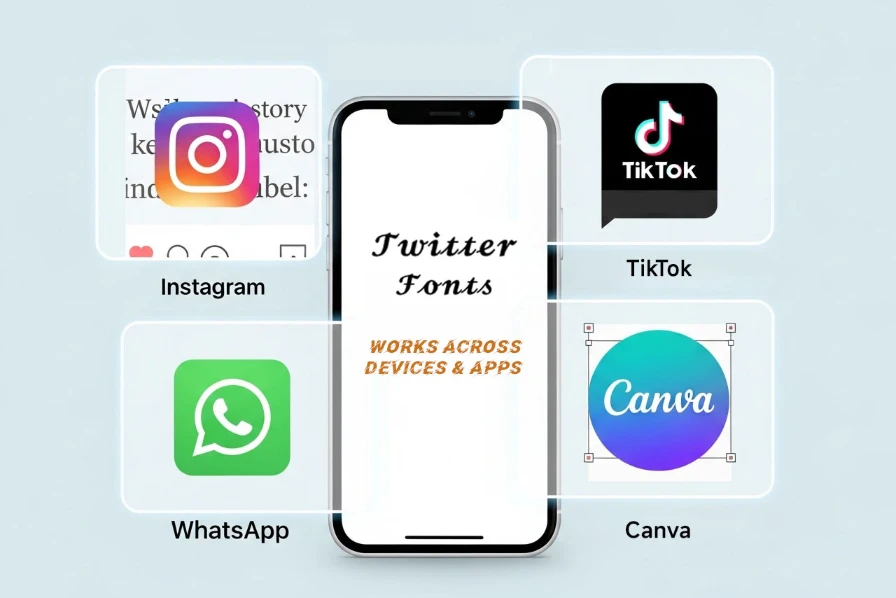
Advantages of Using a Twitter Font Generator
-
Save Time and Effort
No need for manual formatting—just type, generate, and copy. -
Wide Variety of Font Styles
From bold Twitter Fonts for headlines to handwritten Twitter Bio Fonts for a personal touch. -
Unicode Compatibility
Your Twitter Thread Fonts will look great across devices and platforms. -
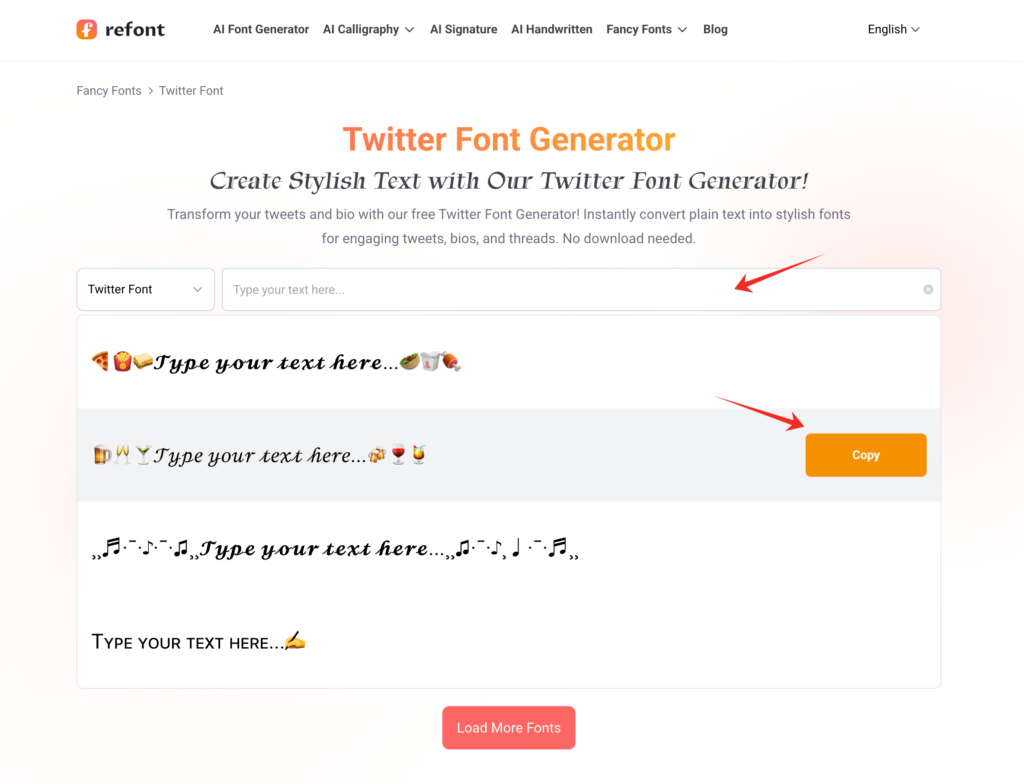
Best Practices for Stylish Twitter Fonts
Combine Fonts with Emojis & Symbols
Enhance your Twitter Fonts by pairing them with emojis( ͡° ͜ʖ ͡°) and symbols to create visually engaging content. For example, use a bold Twitter Font for your tweet headline, and add spark emojis to grab attention.
Maintain Consistent Font Styles
For professional accounts or brand pages, using consistent Twitter Fonts across your tweets, bio strengthens brand recognition. A Twitter Font Generator allows you to select Unicode Twitter Fonts that align with your brand’s aesthetic. For instance, stick to clean Twitter Bio Fonts for a cohesive look that reinforces your identity across the platform.
Choose Fonts Based on Content
- Formal announcements → Use clean, readable Unicode Twitter Fonts for professionalism.
- Creative or personal expression → Try handwritten or decorative Twitter Thread Fonts.
- Trending or viral tweets → Bold or eye-catching Stylish Twitter Fonts boost engagement.
Don’t Overdo It
Using too many styles can overwhelm readers. Combine one bold font for headings with a simple Unicode Twitter Fontfor body text to keep your tweets clear and professional.
FAQ – Twitter Font Generator
Q2: Will generated fonts work on other platforms?
Most Unicode-based fonts are compatible with social media platforms, though some decorative fonts may display differently on older apps or browsers.
Q3: Can I change Twitter font style directly in the app?
No. Twitter doesn’t have built-in font customization. You’ll need to use a Twitter Font Generator to create and paste styled text.
Just copy-paste your generated Twitter Bio Fonts into your profile.
Q5: What are the best fonts for a Twitter bio?
Simple, clean Twitter Bio Fonts (like bold or italic Unicode styles) improve readability and make your profile look professional.
Conclusion
Using a Twitter Font Generator is one of the easiest ways to make your tweets, bios, and threads more stylish and memorable. With free, Unicode-based tools, you can create custom Stylish Twitter Fonts that boost visibility, attract followers, and strengthen your personal or brand identity.